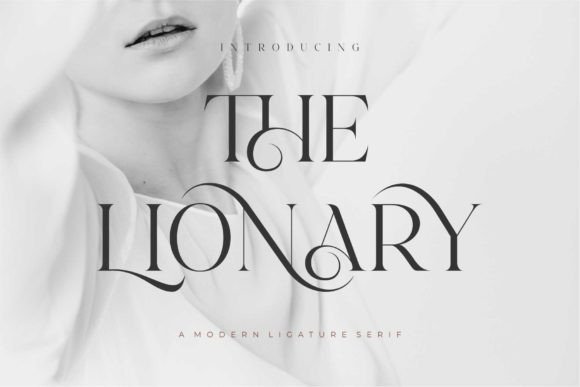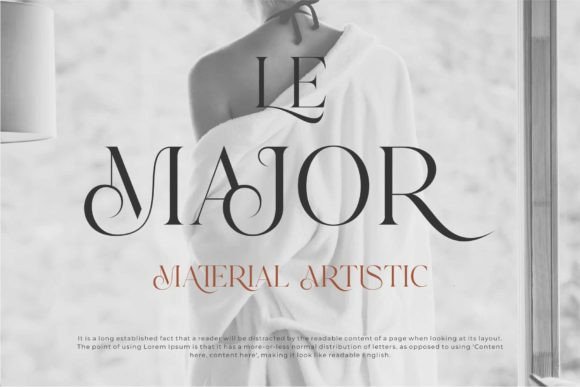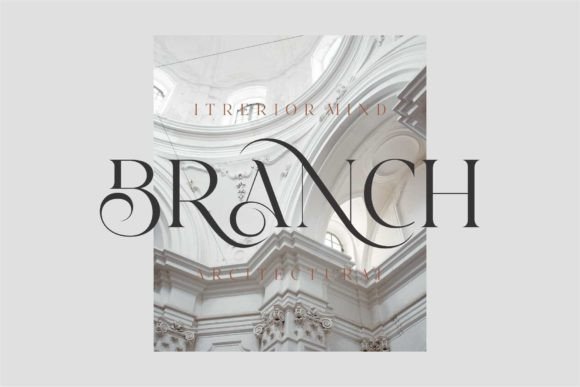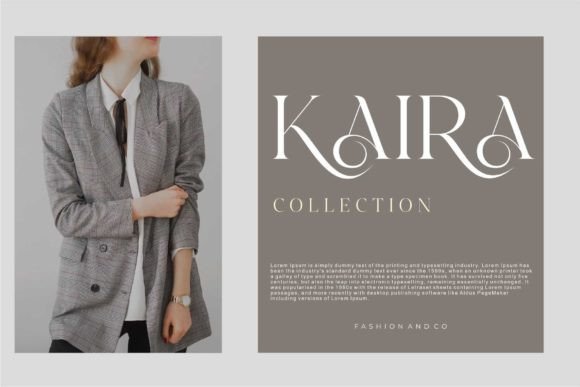
Lionary Font: Elegant Serif Typography for Modern Logo Design
About the Lionary Font
Explore the possibilities with Lionary Font, a font that offers both beauty and functionality. Lionary is an elegant and bold serif font. Fall in love with its incredibly versatile style and use it to create gorgeous wedding invitations, beautiful stationary art, eye-catching social media posts, and much more!
Lionary’s elegant boldness makes it ideal for headlines, short-form text in branding materials, and impactful logos. It also works well on packaging where a touch of sophistication is desired, particularly for luxury or premium products. However, its strong serifs and relatively high x-height make it less suitable for body copy or extended text blocks. Avoid using it for UI elements or applications requiring high legibility in small sizes.
Pairing Lionary effectively depends on the desired overall aesthetic. For a modern and luxurious feel, consider pairing it with a clean sans-serif like Montserrat or a minimalist geometric sans-serif such as Futura. To create a more classic and traditional look, a complementary serif like Garamond or a refined script font like Playfair Display would work well.
Lionary possesses a sophisticated yet assertive personality; it’s confident and authoritative without being overly aggressive. Brands targeting a discerning clientele seeking quality and style would find it a strong choice.
Lionary Font Usage Examples
Lionary Font Example